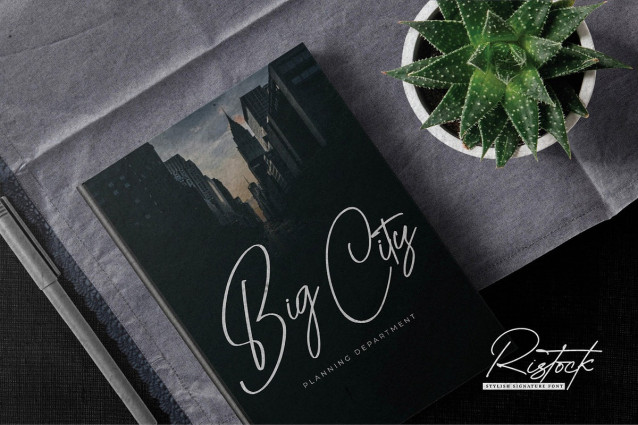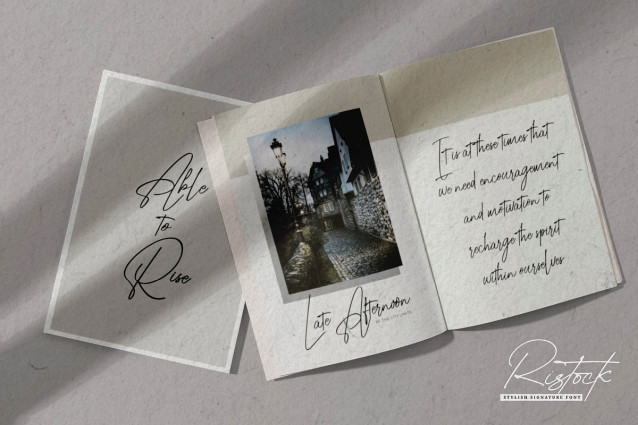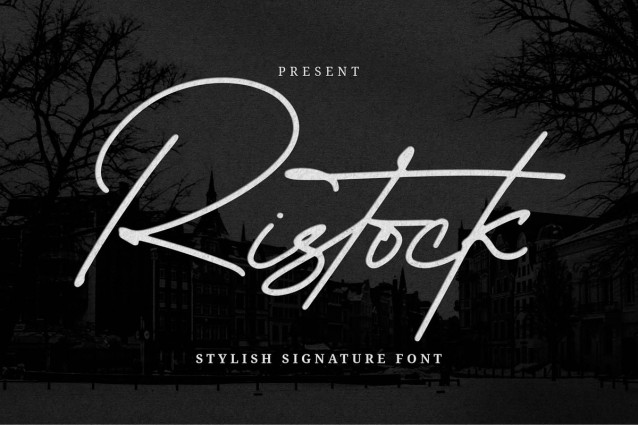
Ristock Font
Ristock Font is a stylish signature typeface crafted with elegant strokes, refined curves, and a beautifully natural handwritten flow. Designed to embody sophistication and modern luxury, this font brings an authentic personal touch that feels both graceful and effortlessly classy. Its smooth lines, delicate rhythm, and expressive letterforms create a timeless signature look perfect for designs that demand elegance, intimacy, and high–end visual appeal. Ristock captures the essence of handcrafted beauty while maintaining the polished refinement needed for premium branding.